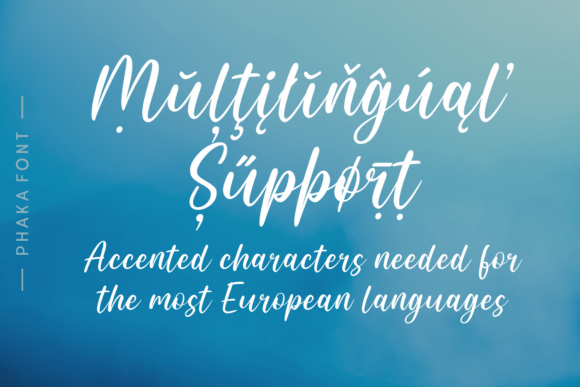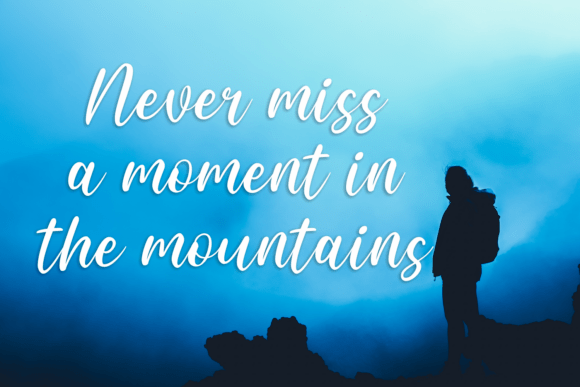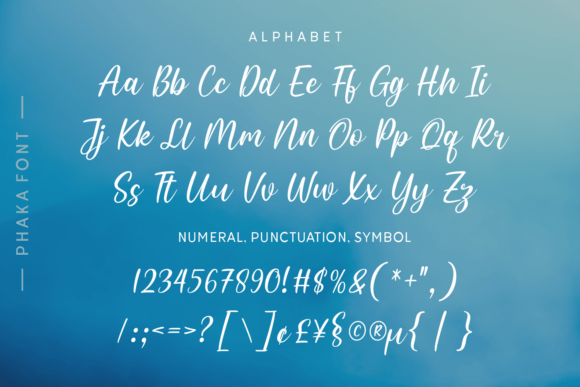
Introduction to Phaka Font
Phaka is a bold and confident script font with sweeping strokes and a touch of modern flair.
Its dynamic presence makes it perfect for striking logos, headers, and adventure-inspired branding .